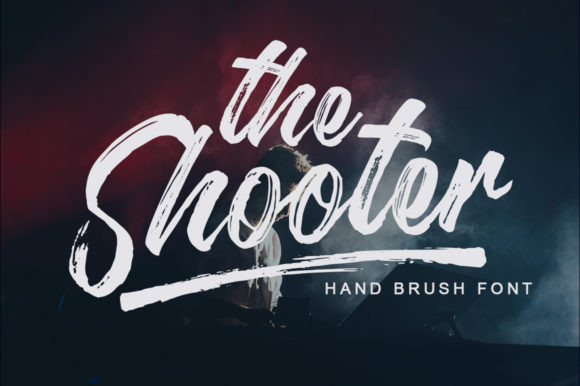
The Shooter Font
The Shooter is a beautifully textured brush handwritten font. It features a contemporary design approach, naturally handcrafted and with a cool underline. It also has several ligatures and alternatives which make your designs even more attractive.